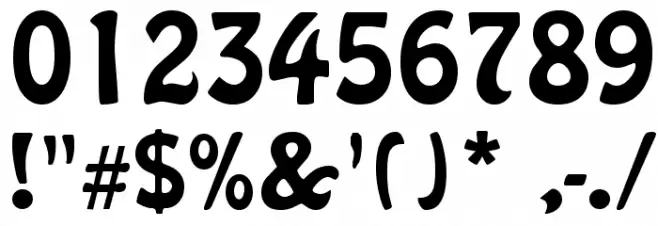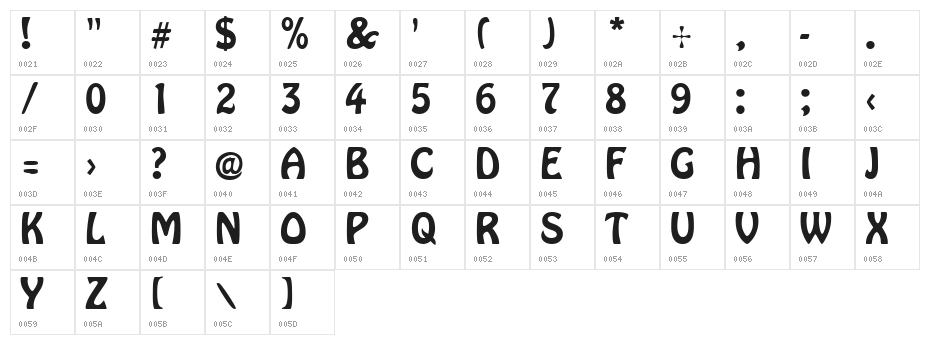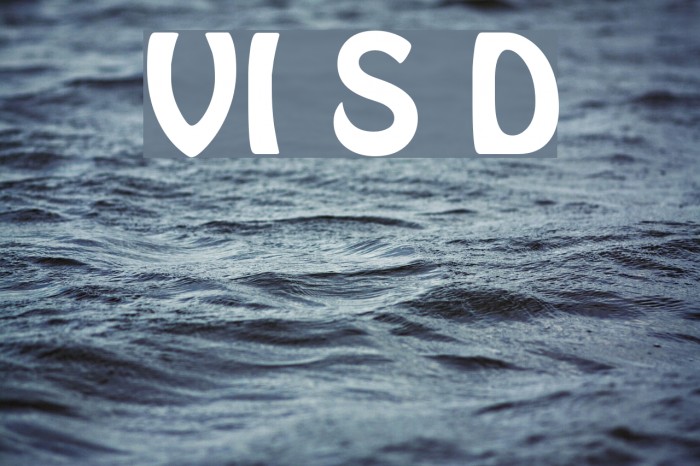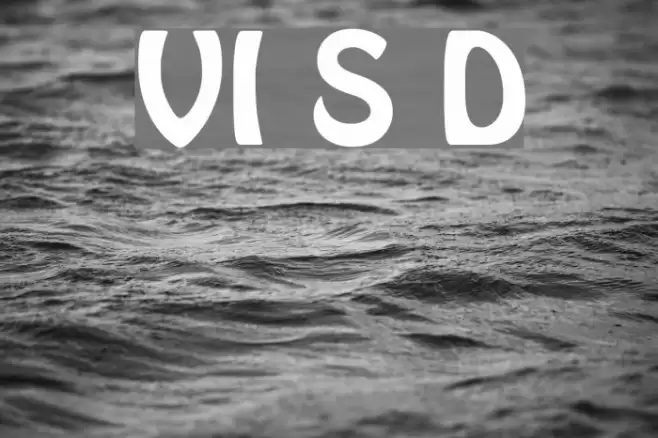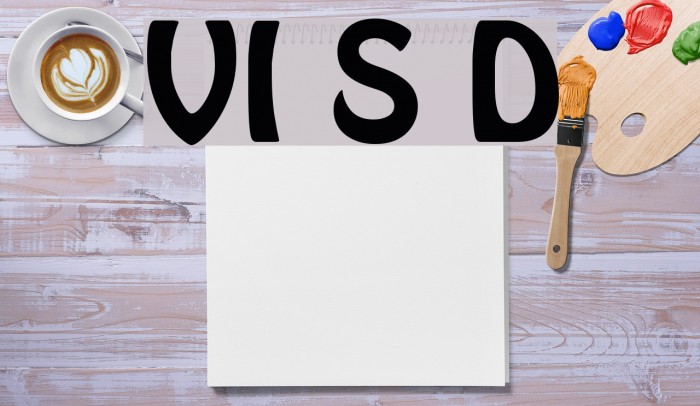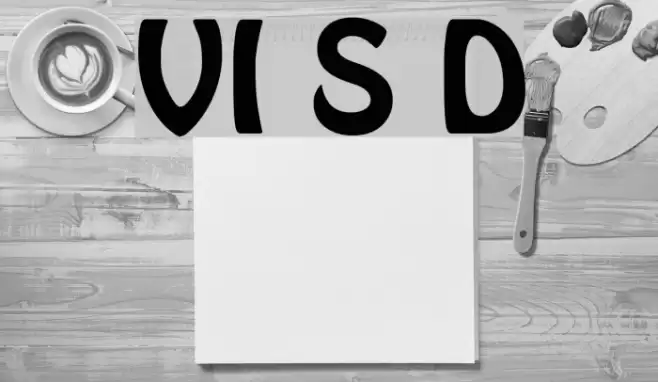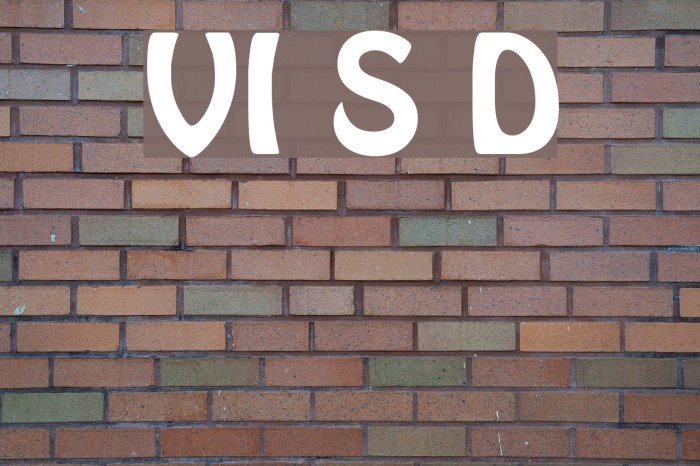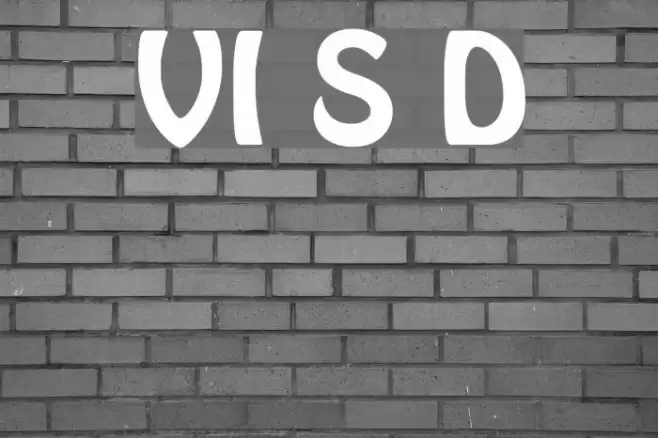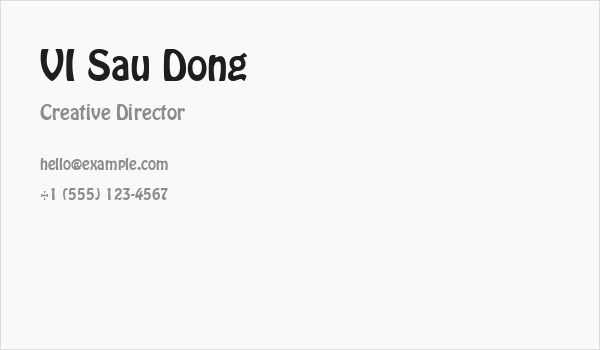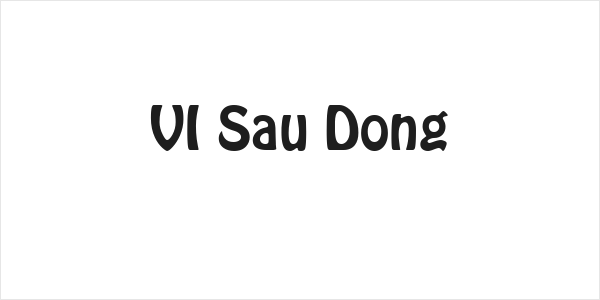
VI Sau Dong Font
VI Sau Dong Description
This font features a playful and bold design with rounded edges and a slightly whimsical style. The characters are thick and have a consistent weight throughout, giving them a strong presence. The uppercase and lowercase letters maintain a uniform height, contributing to a cohesive look. The numerals are equally bold, matching the style of the alphabetic characters. Special characters are designed with the same playful curves, making them stand out. Overall, this font exudes a fun and approachable vibe, suitable for creative and informal projects.